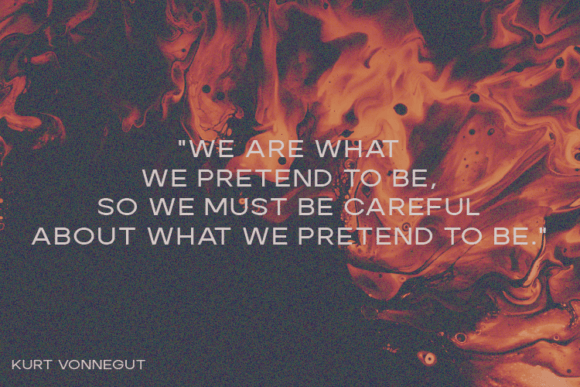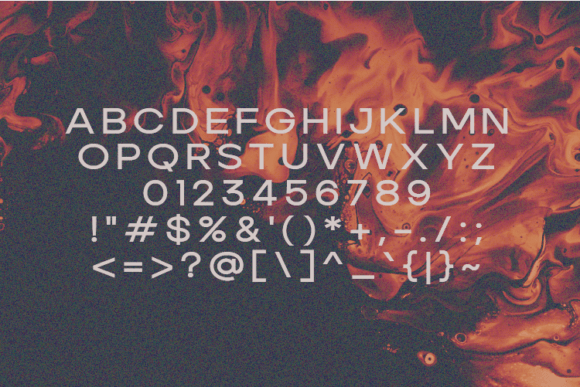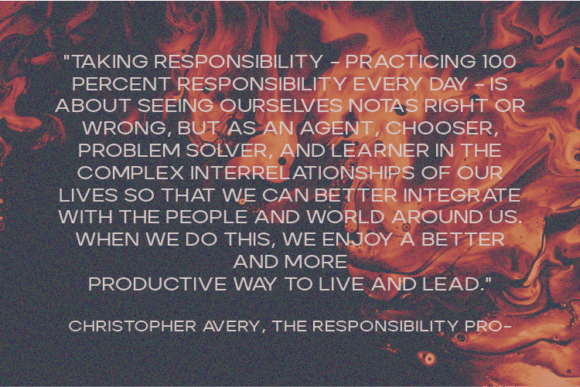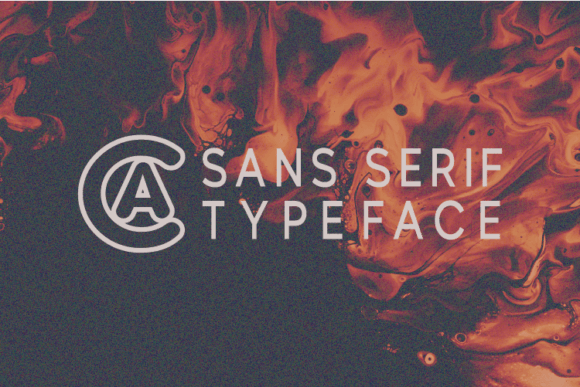
Unleashing the Power of Typography: Introducing Blackode Font
As a designer, there’s nothing quite like the rush of finding the perfect font to bring a project to life. Whether it’s a bold statement or a subtle nuance, the right typeface can make all the difference. For me, that moment came when I stumbled upon Blackode Font – a modern, classy sans serif typeface that’s been a game-changer ever since.
Blackode Font is more than just a typeface; it’s a versatile tool that’s perfect for a wide range of applications, from logos and weddings to invitations and advertisements. Its sleek, sophisticated design makes it a valuable asset for designers looking to elevate their work and make a lasting impression.
With Blackode Font, designers can unlock a world of creative possibilities and take their projects to new heights. Its flexibility, style, and professionalism make it an indispensable resource for anyone looking to make a statement in the world of design.
Blackode Font Key Features
- Font Family: Blackode is a sans-serif font family with a modern and clean design.
- Font Sizes: Available in 6 font weights: Thin, Light, Regular, Medium, Bold, and Black.
- Unique Characteristic: Blackode features a distinctive x-height and a slightly condensed width, making it ideal for body text and digital interfaces.
- Language Support: Supports a wide range of languages, including Latin, Cyrillic, Greek, and many others, making it a versatile choice for global projects.
Designer Review: Blackode Font
Overall, I’d say the Blackode Font is a solid addition to any designer’s toolkit. It has a unique, modern aesthetic that’s perfect for contemporary designs. ✨ The font’s clean lines and geometric shapes give it a futuristic feel that’s sure to grab attention.
- ✨ Unique and modern aesthetic
- ✨ Clean lines and geometric shapes
- ✨ Perfect for contemporary designs
- ✨ Wide range of font weights and styles
However, there are some limitations to consider. ⚠️ The font may not be suitable for traditional or classic designs, as it can come across as too modern or avant-garde. Additionally, the font may not be as readable in smaller sizes, which could be a concern for designs where text is a key element.
- ⚠️ May not be suitable for traditional or classic designs
- ⚠️ May not be as readable in smaller sizes
Overall, I’d give the Blackode Font 4 out of 5 stars. It’s a great choice for designers looking to add a modern twist to their work, but may not be the best fit for every project.